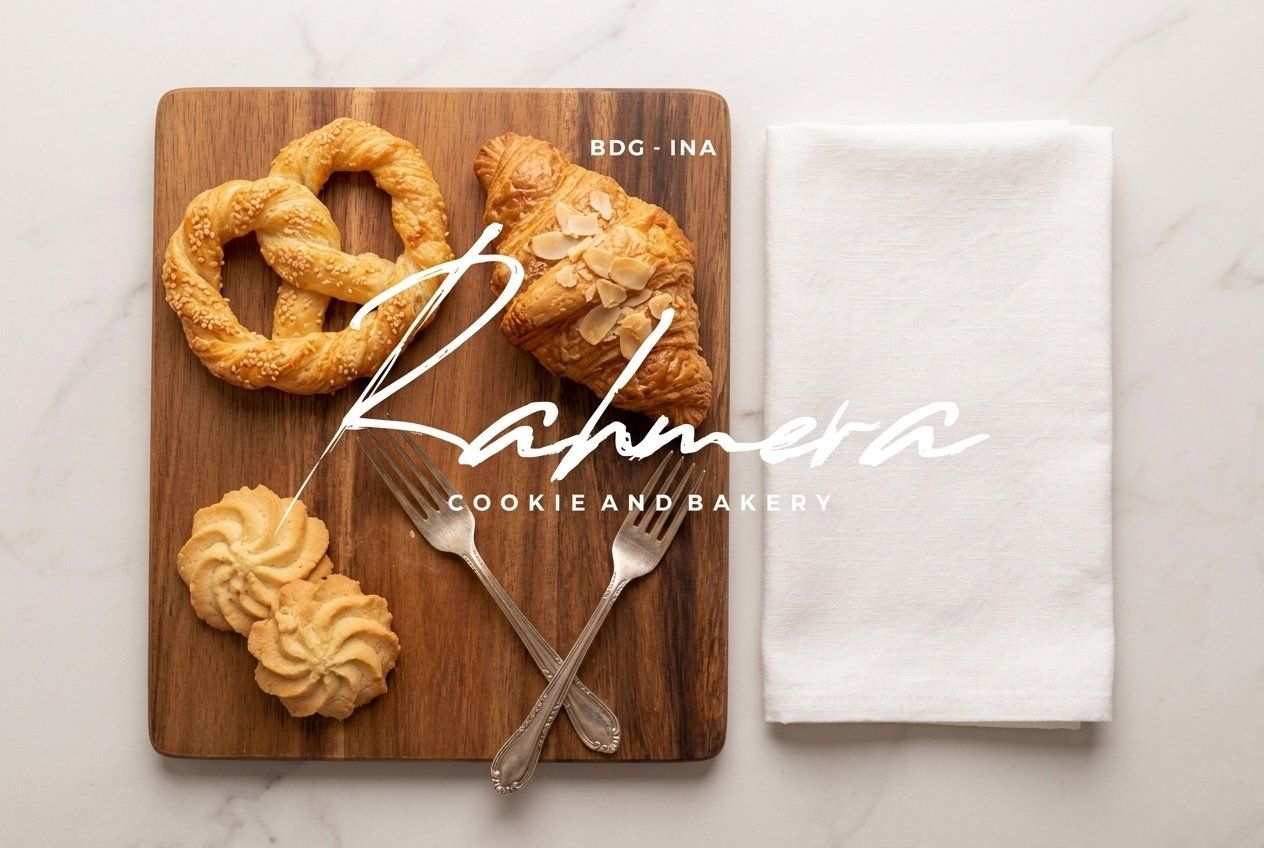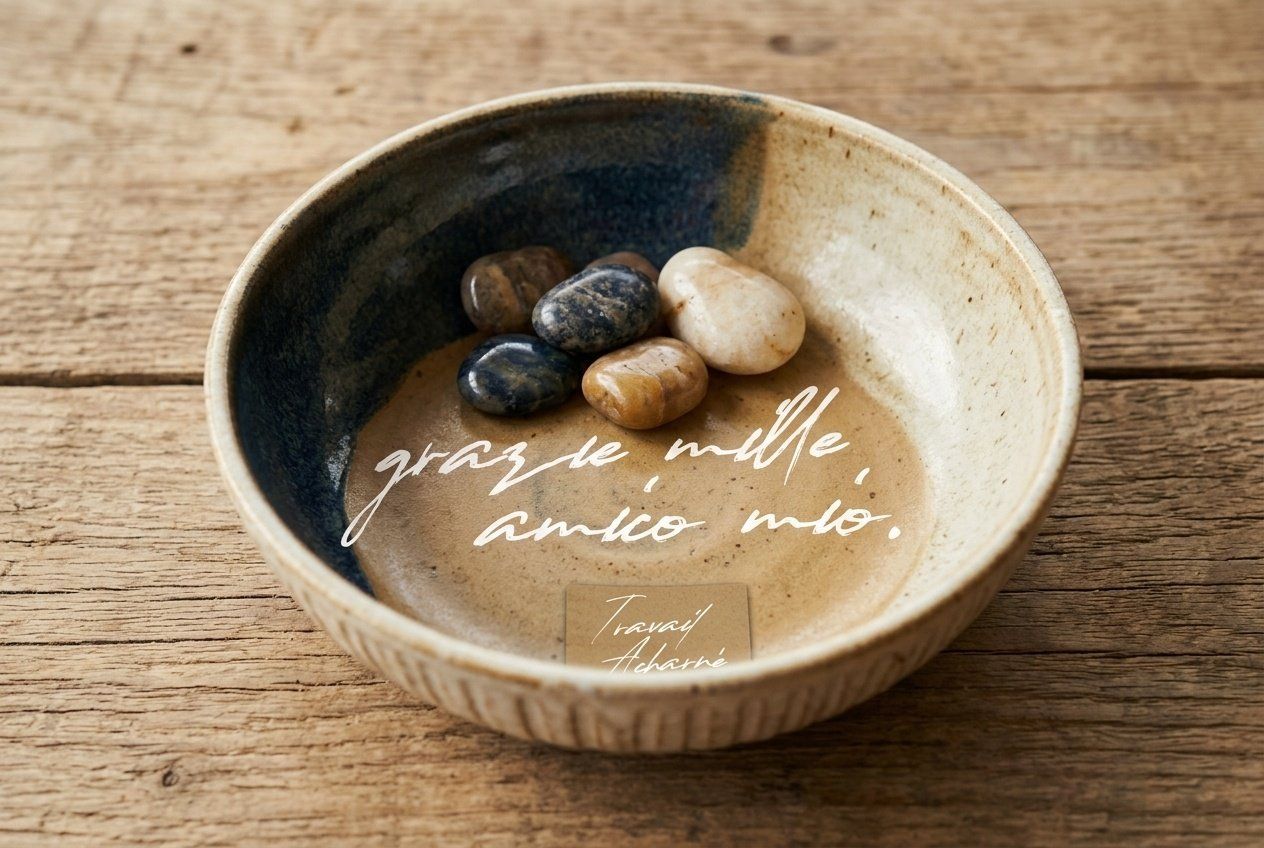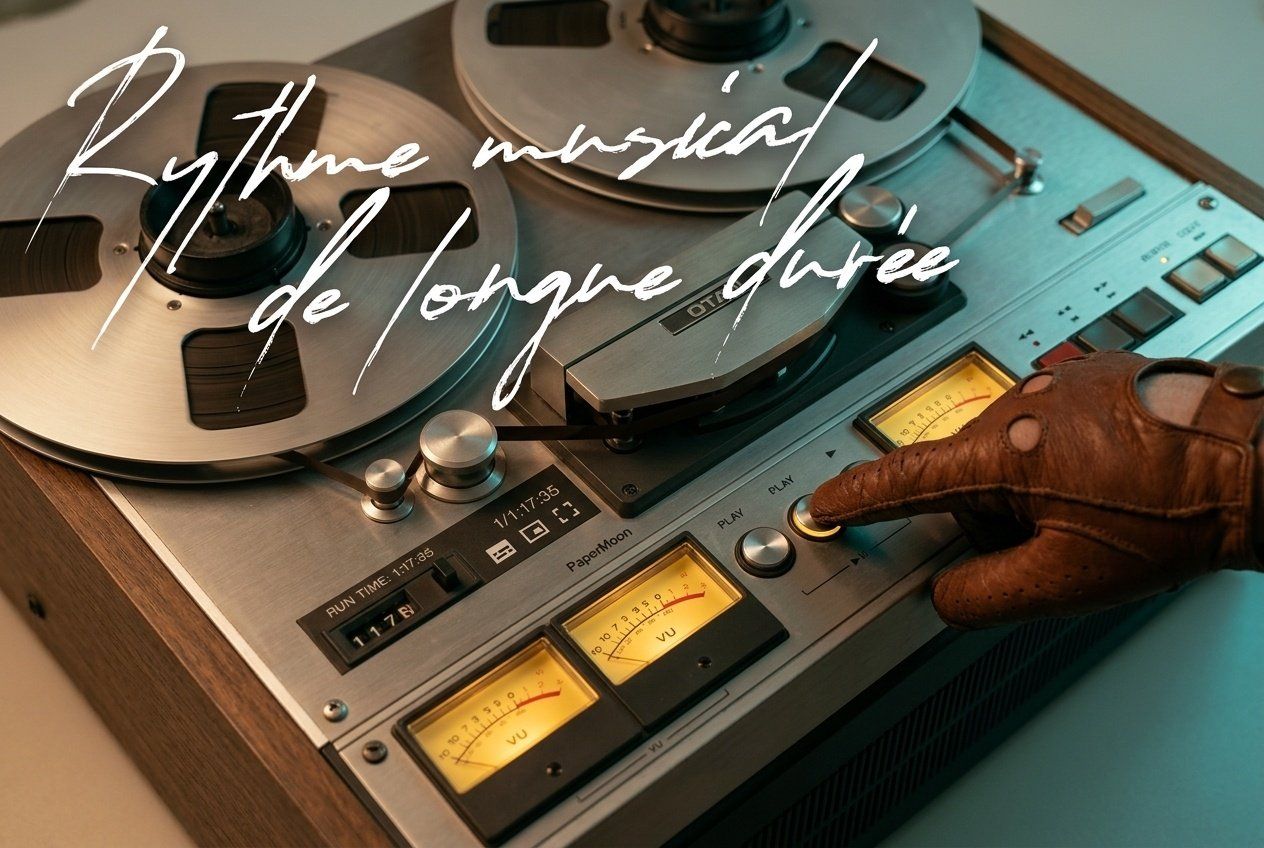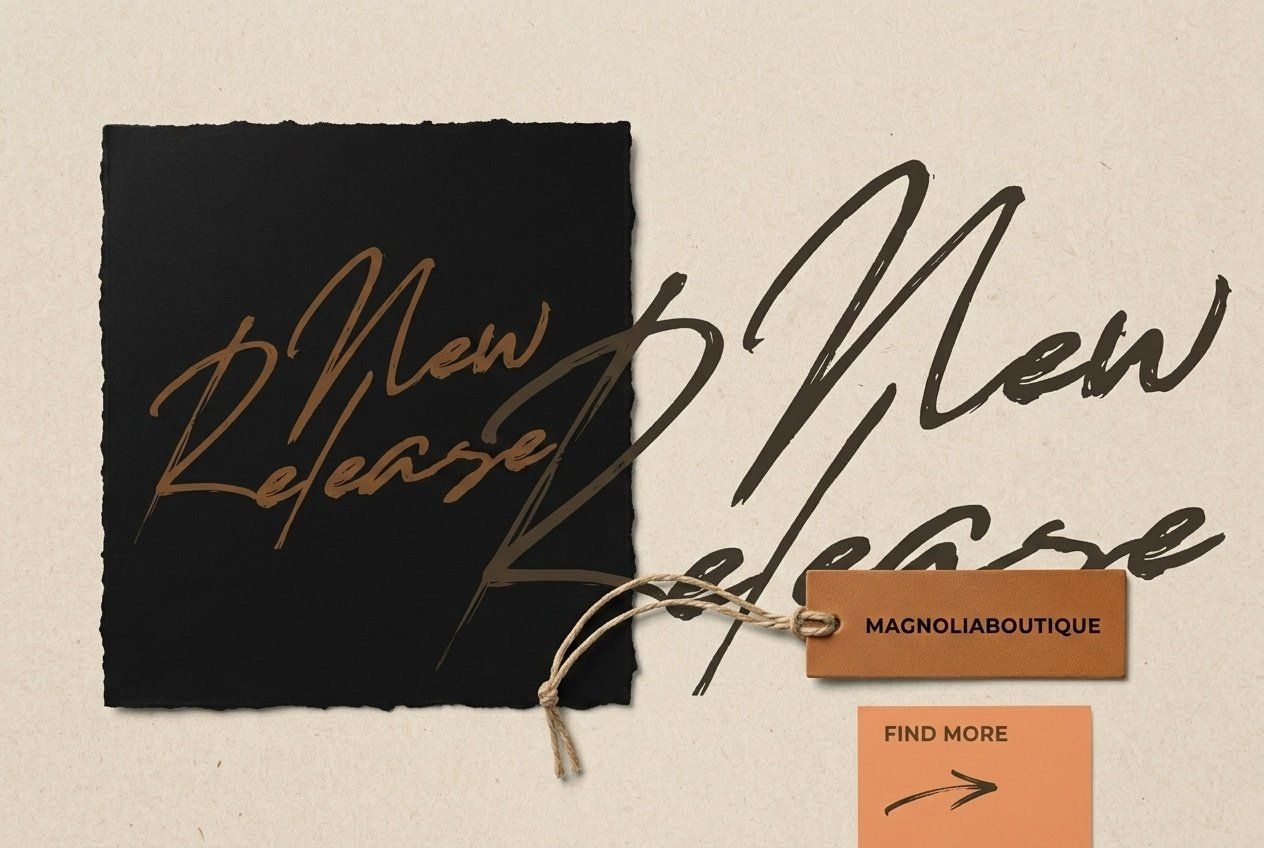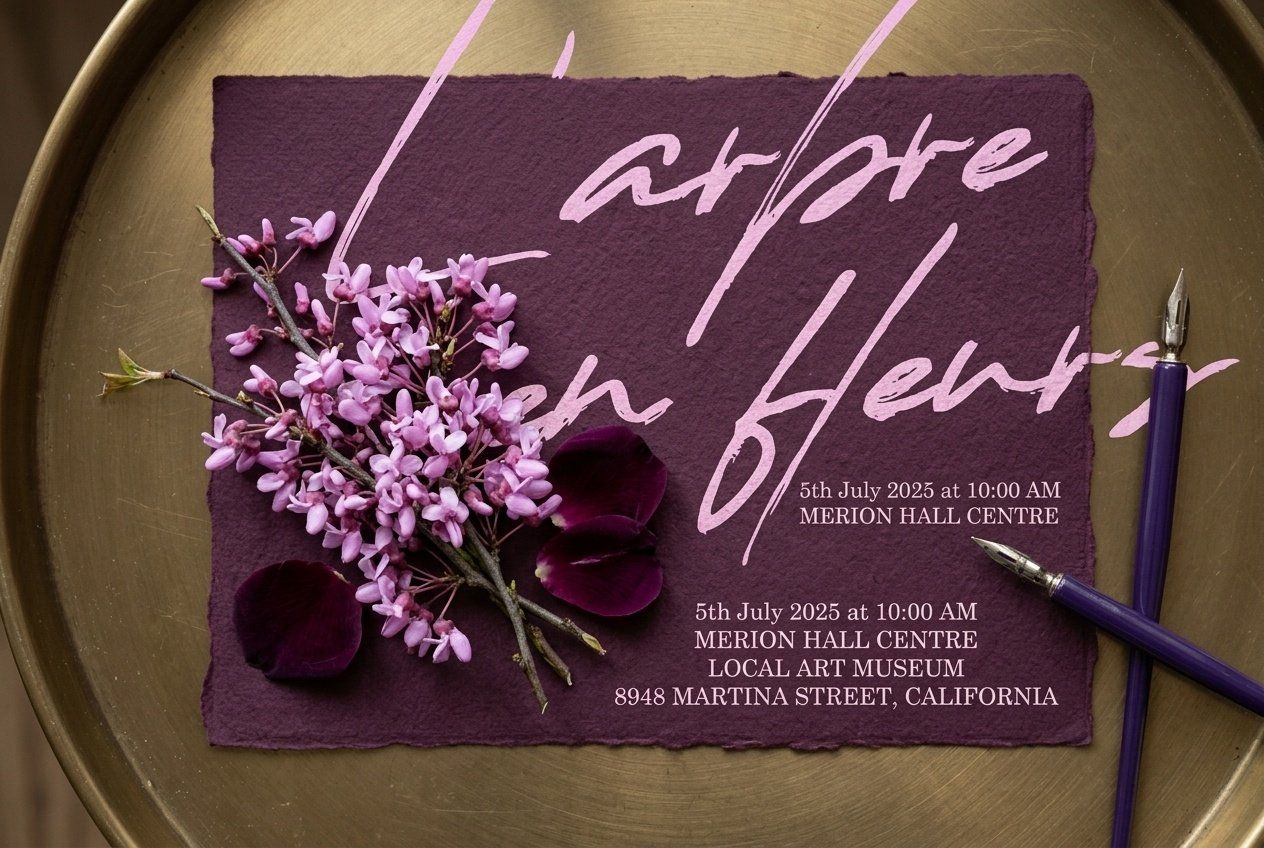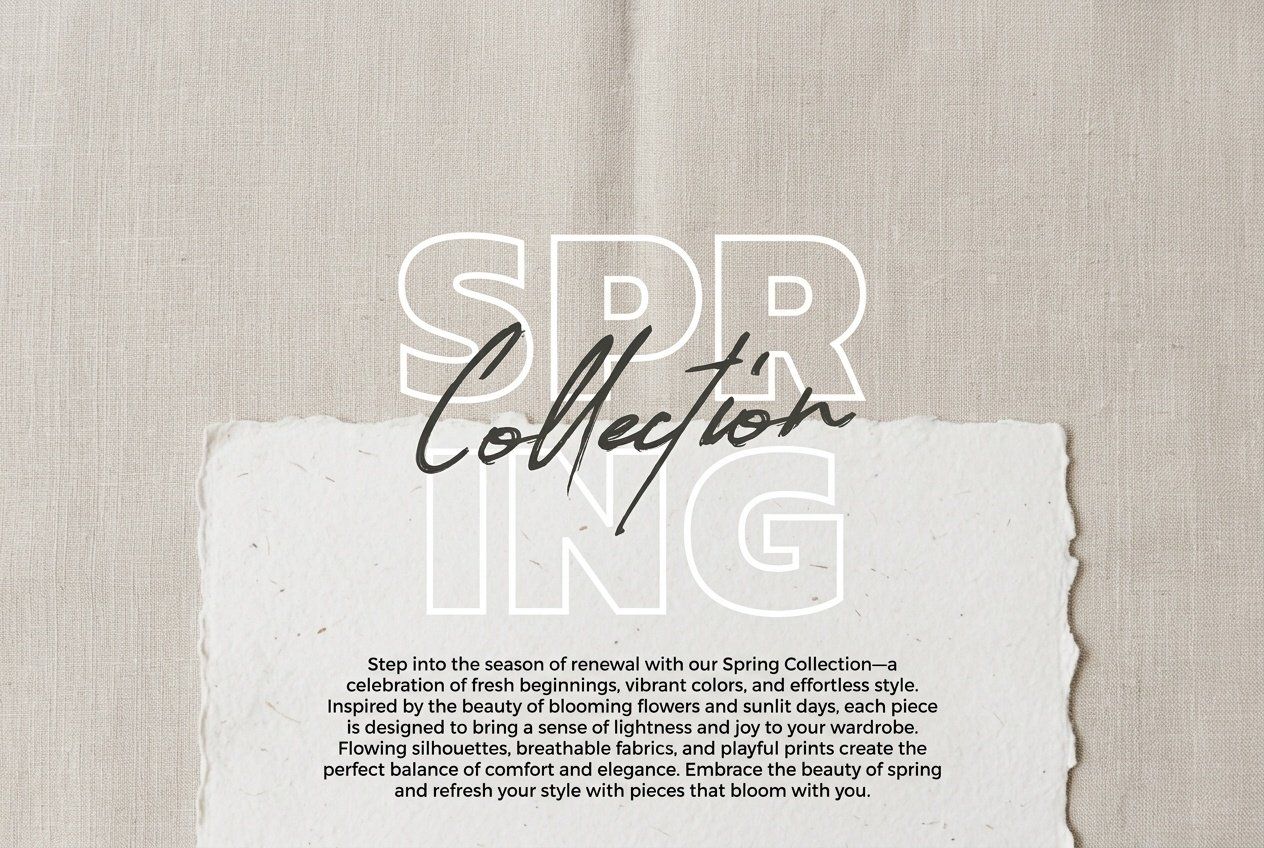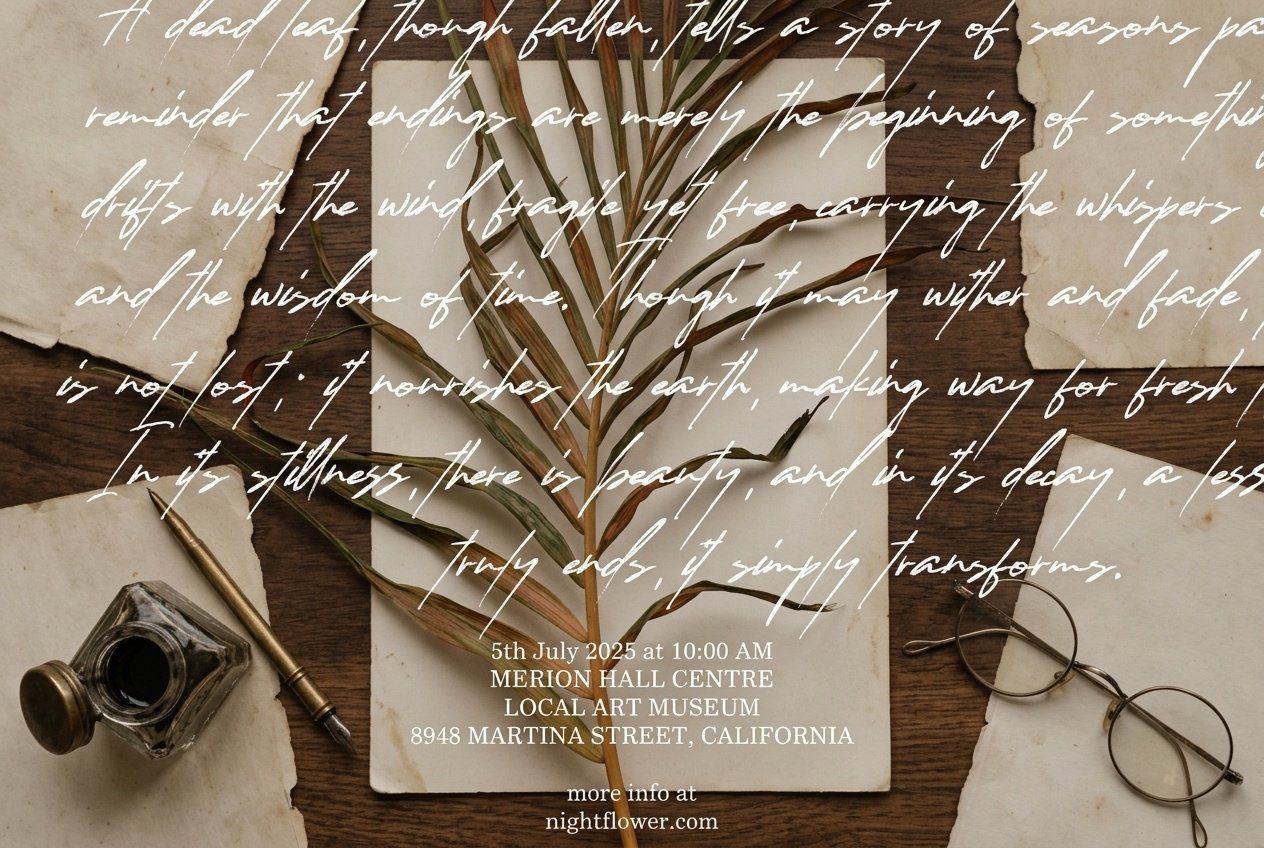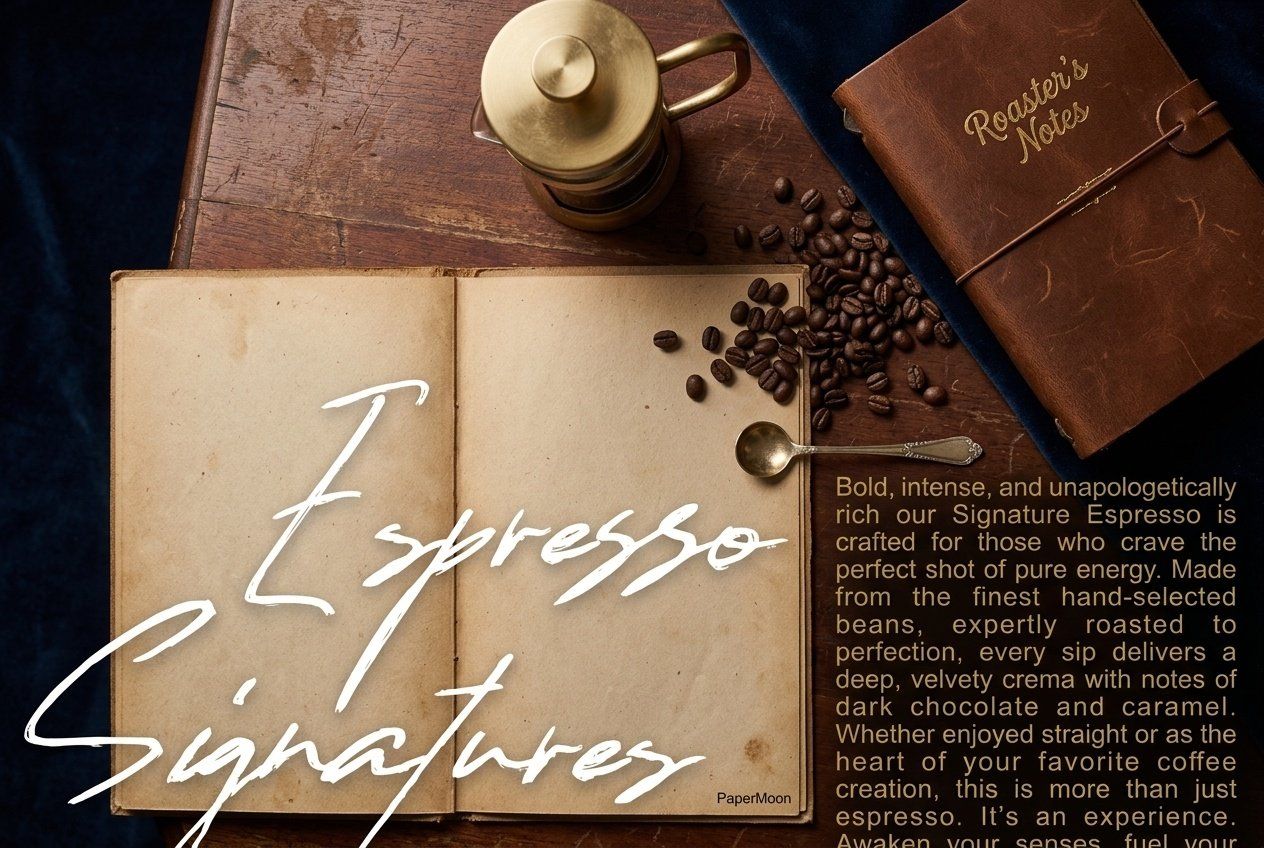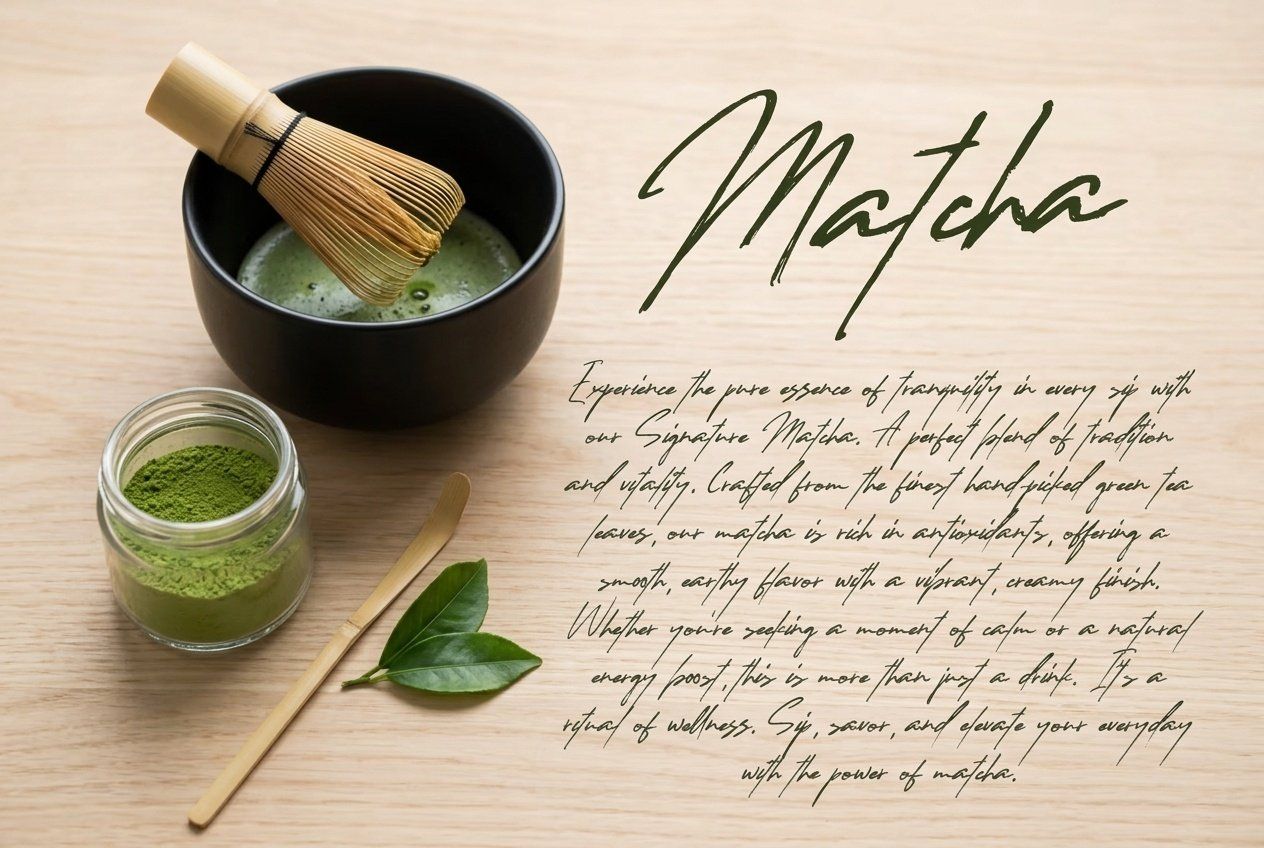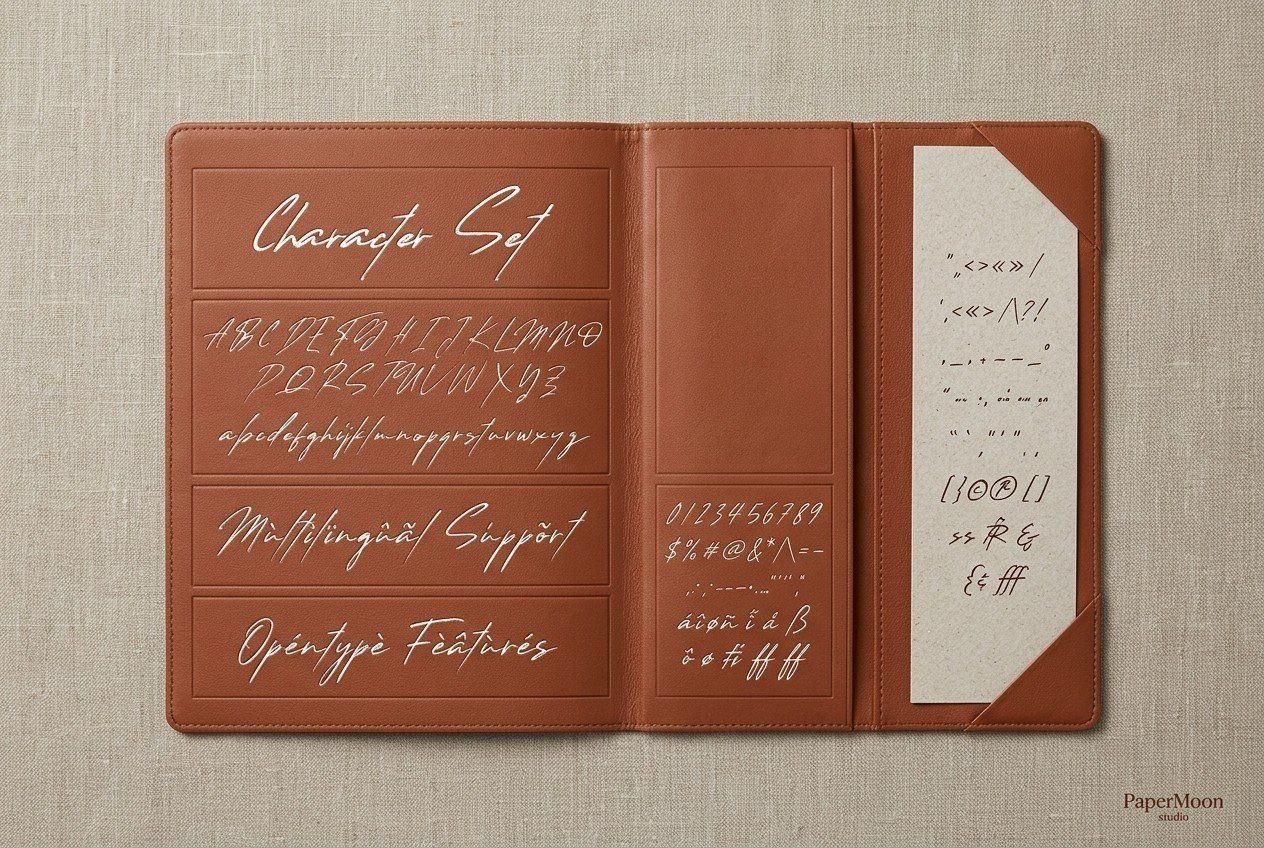
Feral Note is a rough handwriting font that brings bold, organic character to expressive logos, packaging, posters, and branded designs.
With its raw, hand-drawn texture and rugged imperfections, Feral Note creates an authentic, hardworking impression without looking overly polished. Its bold and dynamic strokes are designed to hold attention while preserving a personal, handcrafted feel.
Use Feral Note for logos, book covers, food and beverage branding, promotional campaigns, video titles, product packaging, quotes, posters, flyers, and impactful text overlays. It works across digital and print projects that need a strong expressive voice.
• Uppercase and lowercase letters
• Numbers and punctuation
• Ligatures